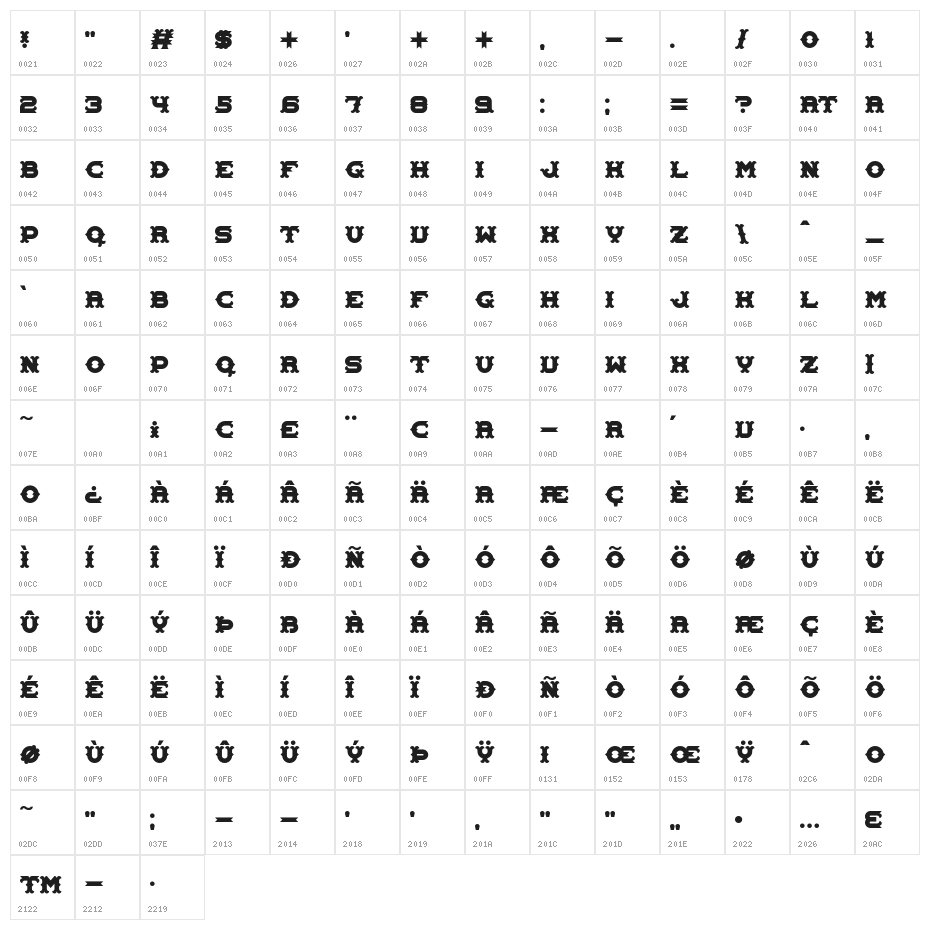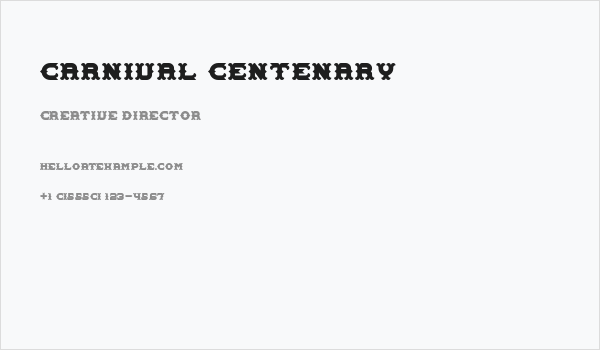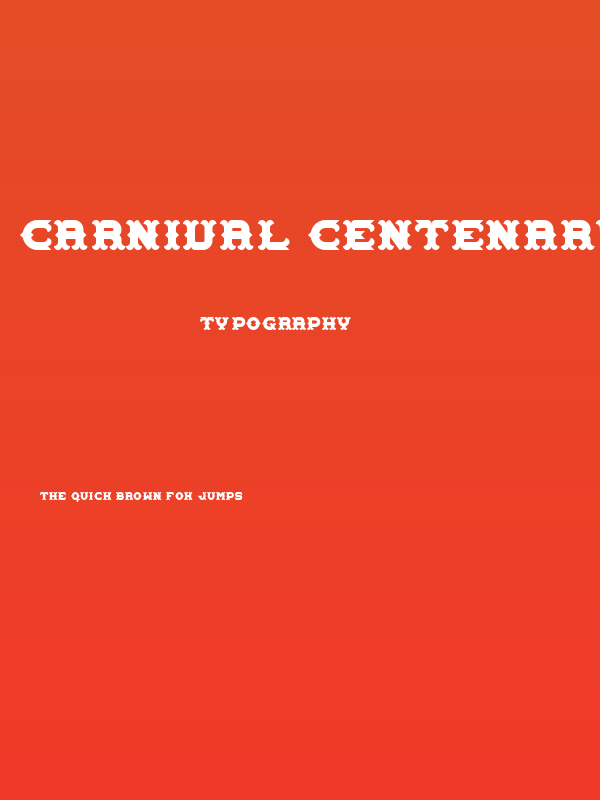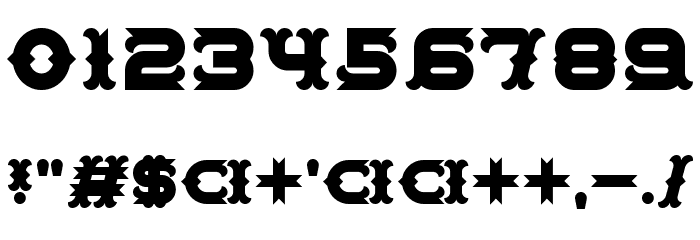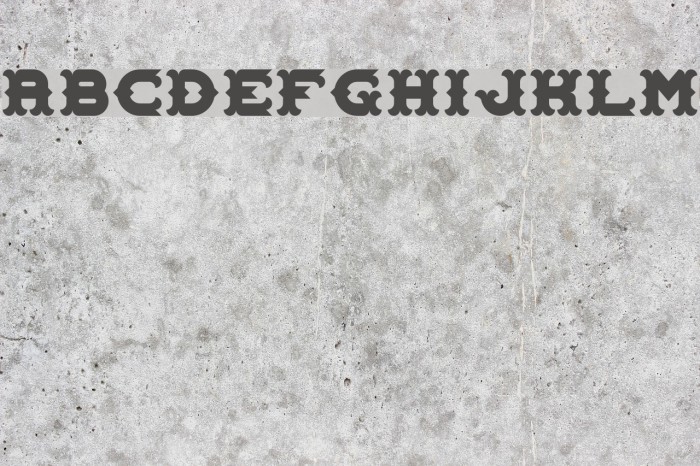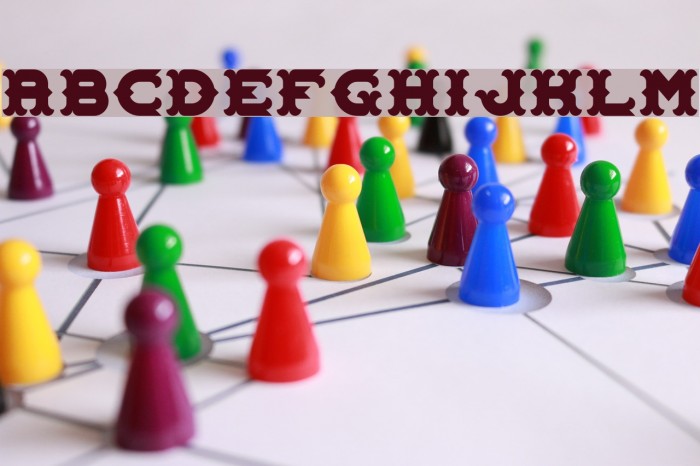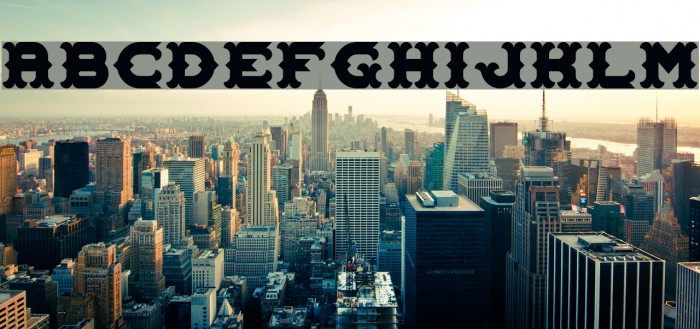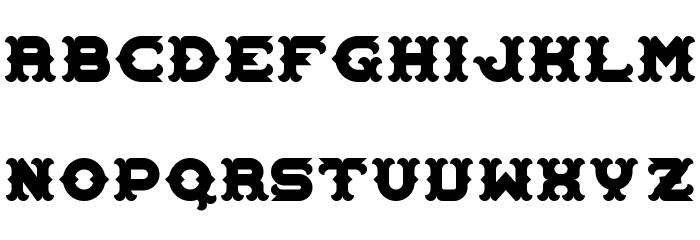
Carnival Centenary Font
Carnival Centenary Description
This font features a bold and decorative style with unique, ornate elements that give it a festive and celebratory appearance. The characters are heavily stylized with intricate details, making it ideal for eye-catching designs. The uppercase and lowercase letters maintain a consistent design theme, with exaggerated serifs and flourishes that add to its distinctive look. The numbers and special characters are equally elaborate, ensuring a cohesive aesthetic across all glyphs. This font is perfect for projects that require a touch of whimsy and flair, such as event posters, invitations, or branding for creative industries.
| Proposed Projects | Ideal for event posters, invitations, and creative branding. |